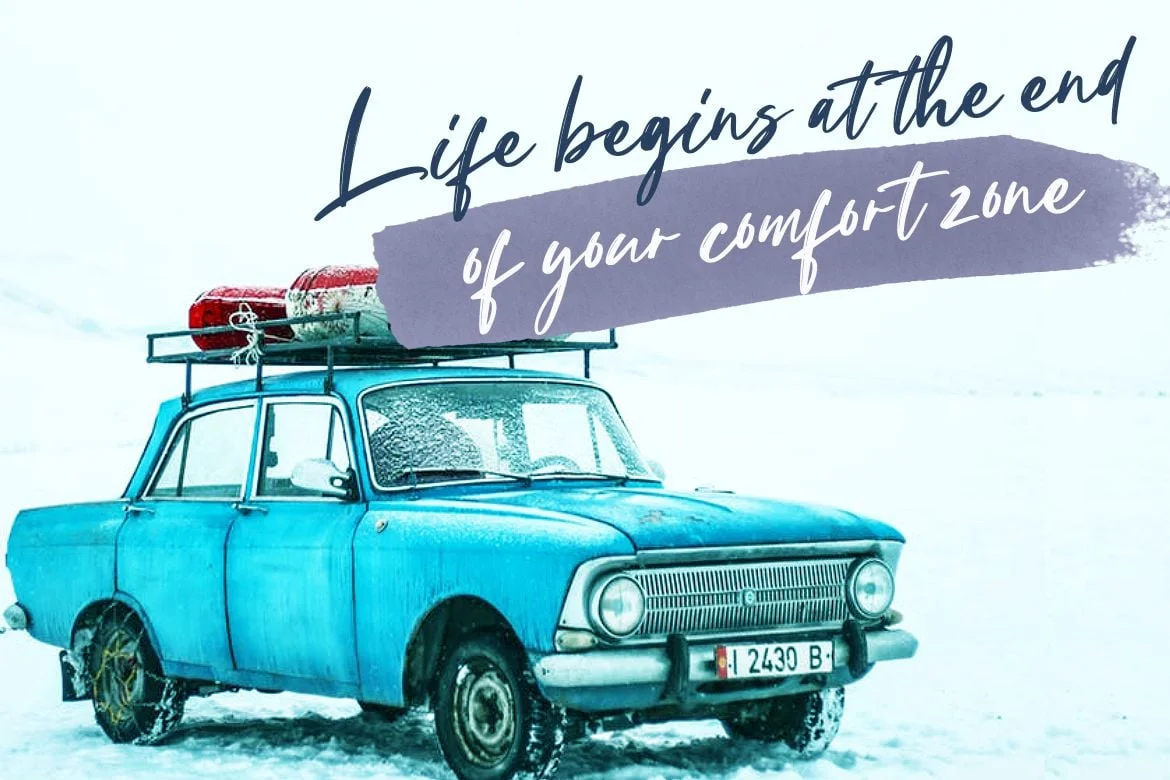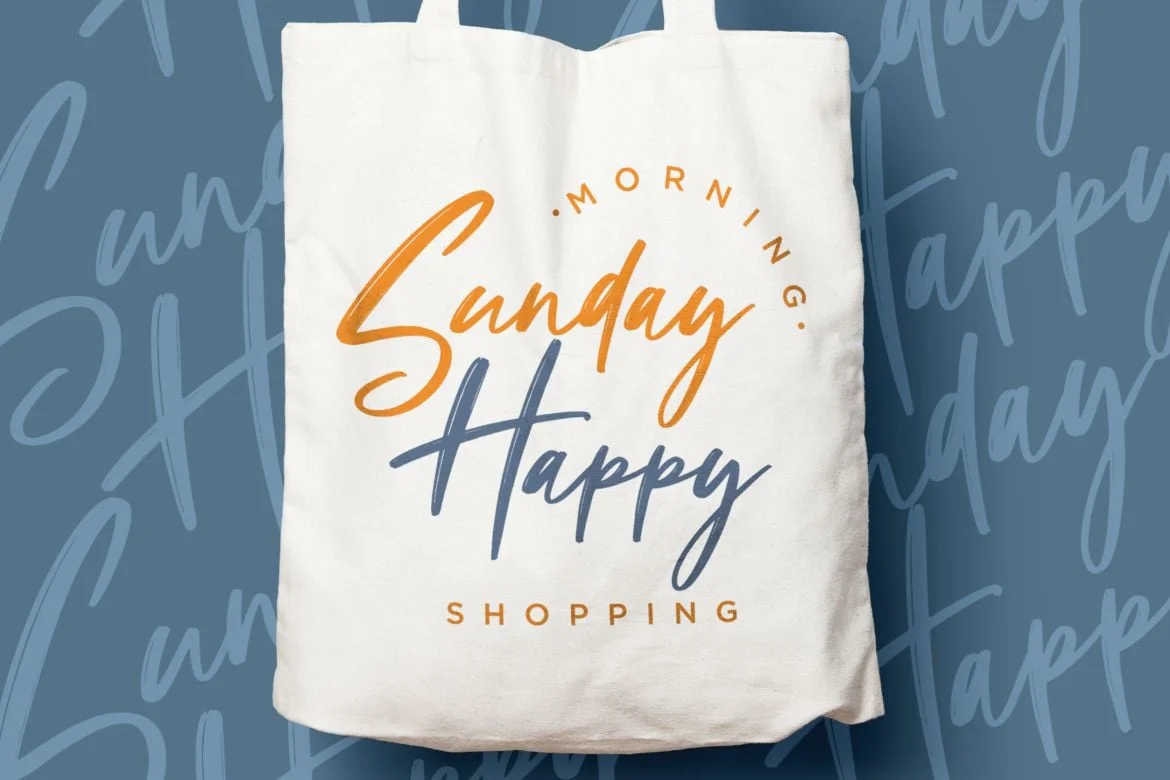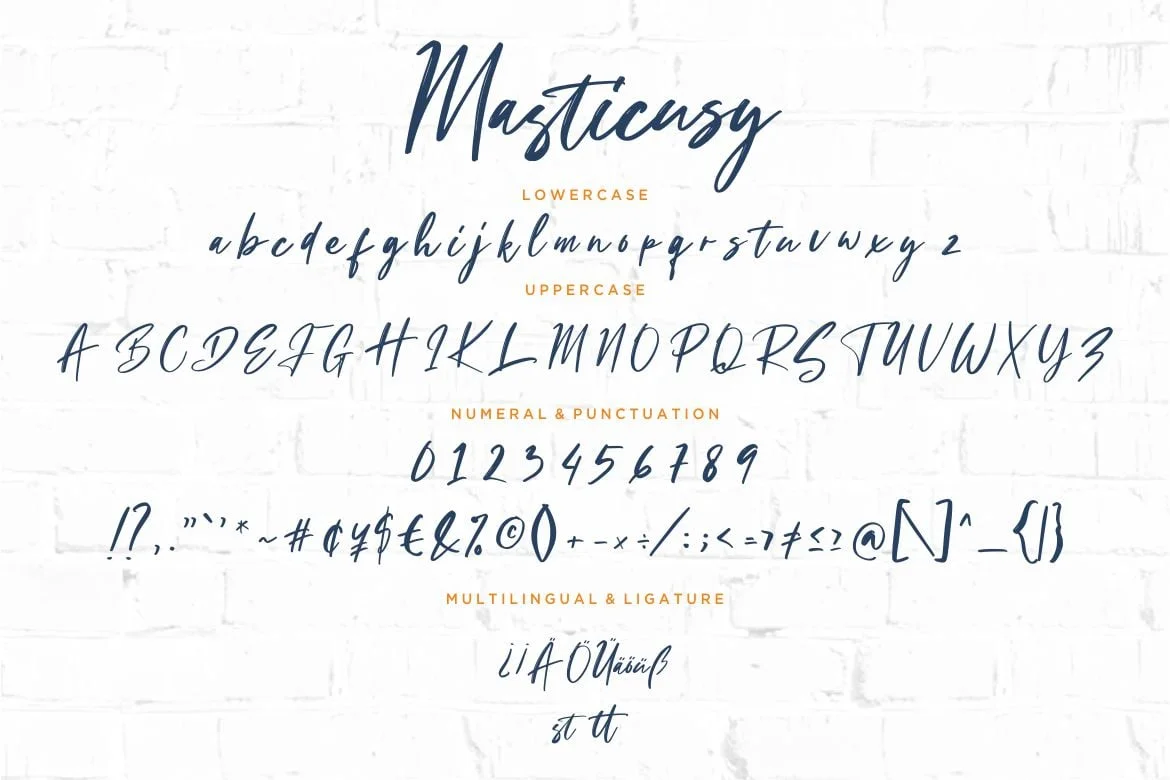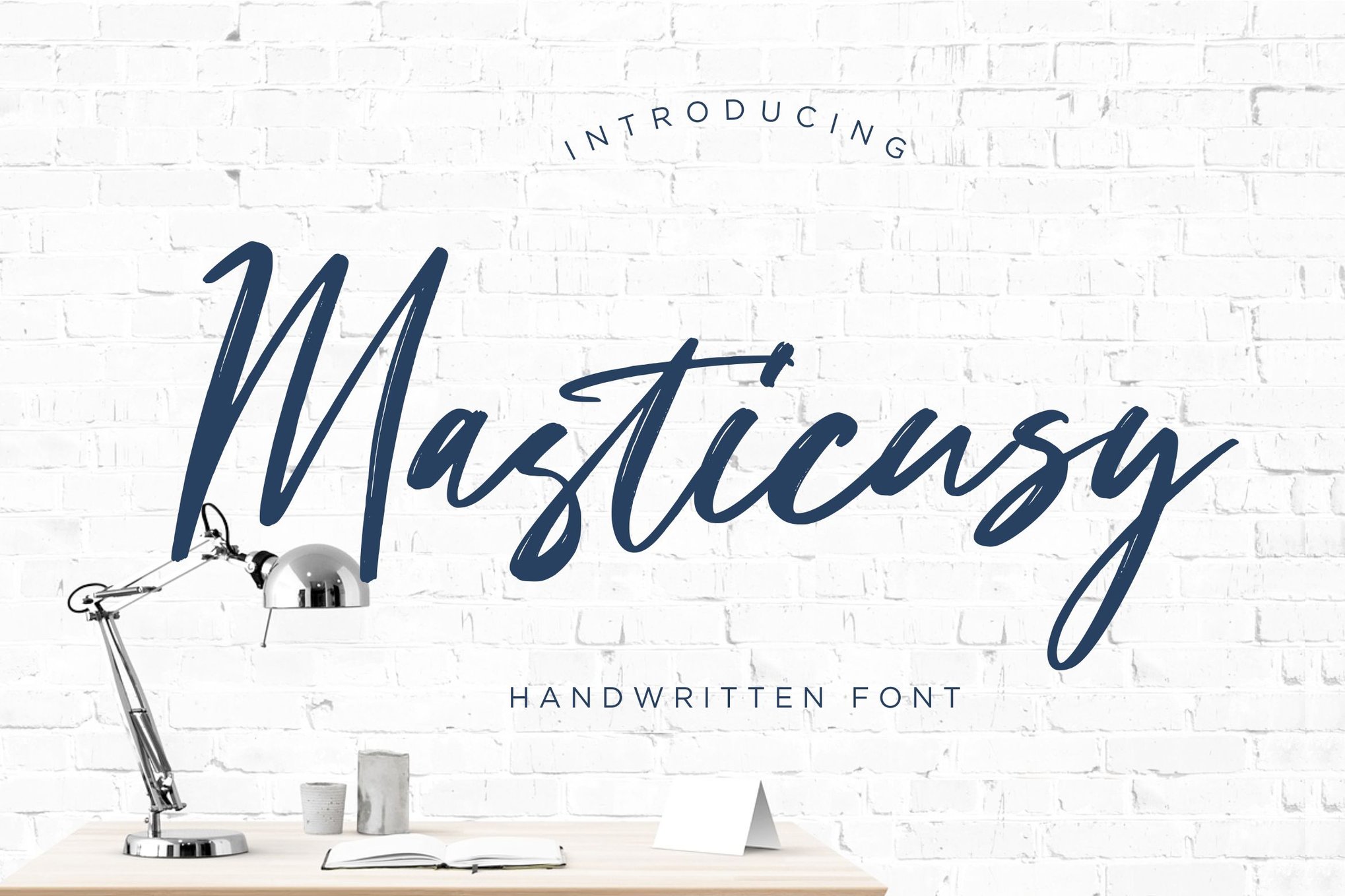
Masticusy Handwritten Business Font
Masticusy Handwritten Business Font is perfect for branding, business cards, professional presentations, social media graphics, and marketing materials. Its elegant handwritten style adds a personal yet professional touch to any project.
What makes Masticusy Handwritten Business Font exciting is its smooth, natural strokes combined with a clean, business-friendly appearance. The font balances creativity and professionalism, making it ideal for modern business design.
The Masticusy Handwritten Business Font family includes Regular, Bold, Italic, and Swash variations, providing designers with flexibility to create stylish and cohesive typographic compositions.
For designers seeking a handwritten font that exudes elegance, professionalism, and versatility, Masticusy Handwritten Business Font is an excellent choice to enhance any project.